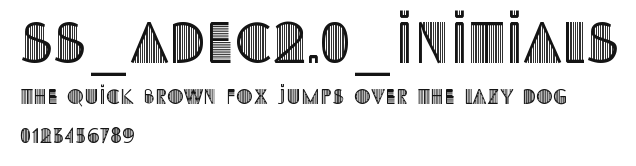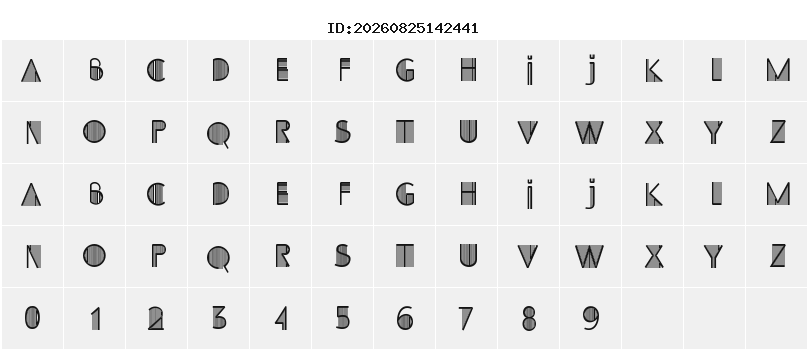
• Font Name: SS_Adec2.0_initials
• Font Style: initials
• Full Font Name: SS_Adec2.0_initials
About SS_Adec2.0_initials.ttf
SS_Adec2.0_initials.ttf is a modern, elegant sans-serif font designed for ultimate readability and visual harmony. Perfect for branding, headlines, web design, and print materials.